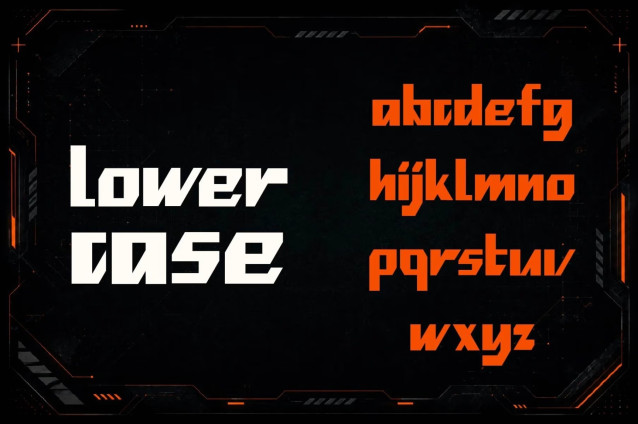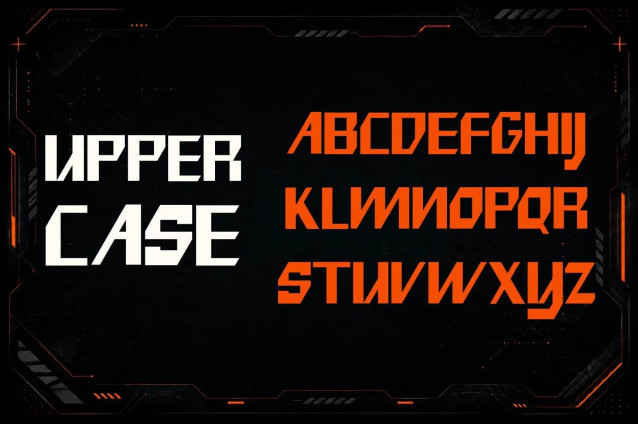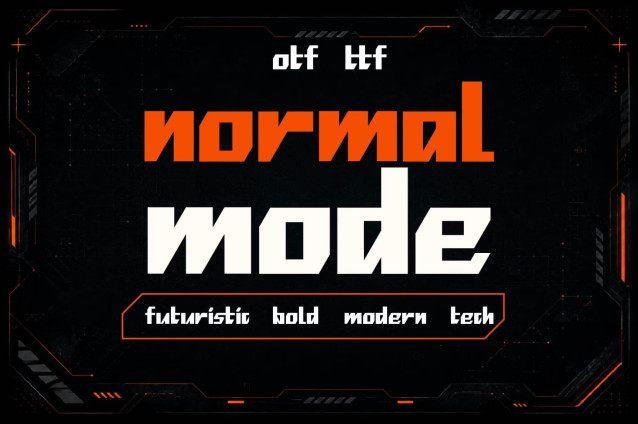
NormalMode – Modern Logo Font
Create professional and stylish designs with NormalMode Font, a modern display typeface created for designers, creators, and brands.
NormalMode combines a clean, contemporary style with unique letter shapes, making it perfect for creating memorable visual identities. Whether you are designing a logo, building a brand, or creating digital content, this font gives your work a modern and aesthetic look.